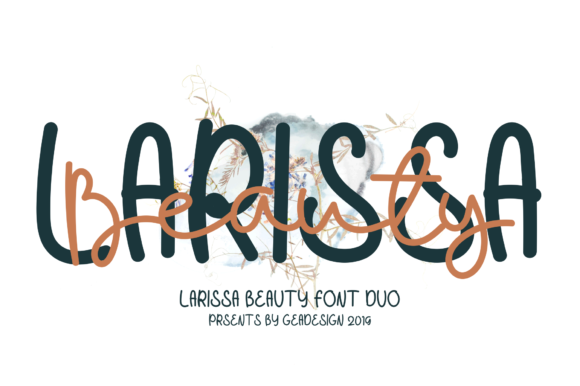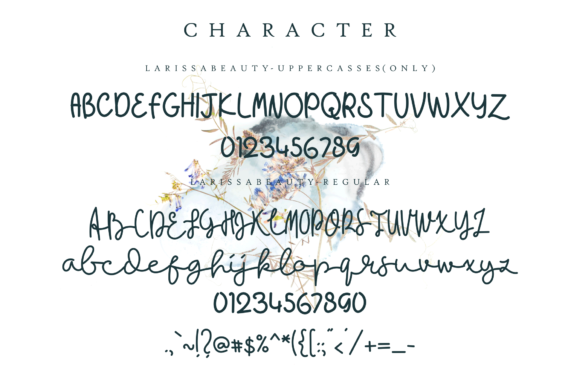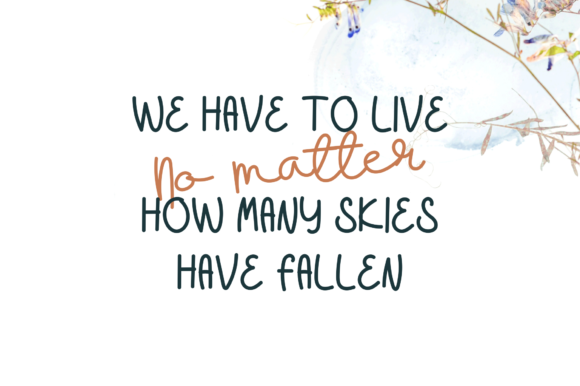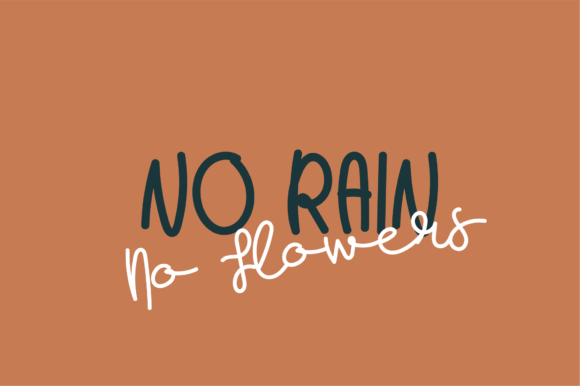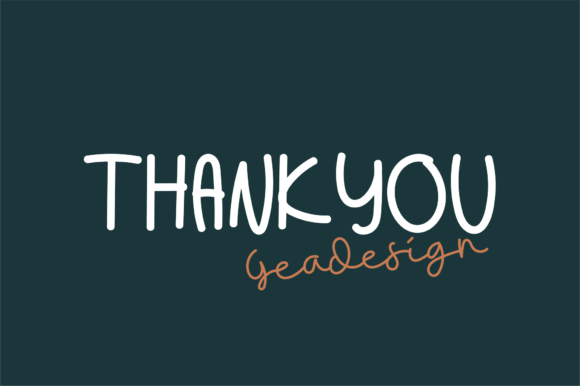
Larissa Beauty Font
About Larissa Beauty Font
Larissa Beauty Duo contains the beautiful Larissa Beauty Script font and the Larissa Beauty uppercase version. Together, these fonts will turn any design project into a lovely stand out.